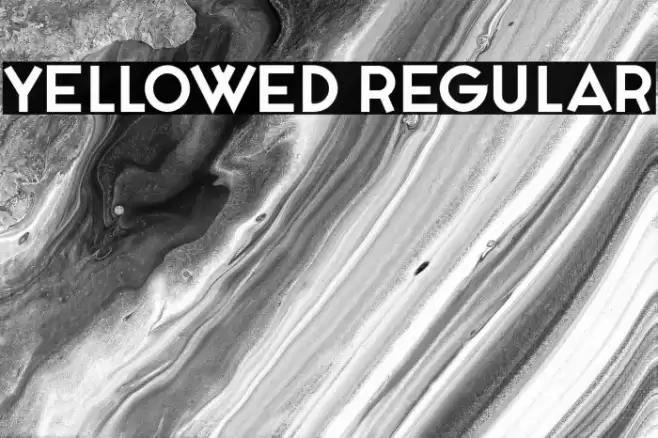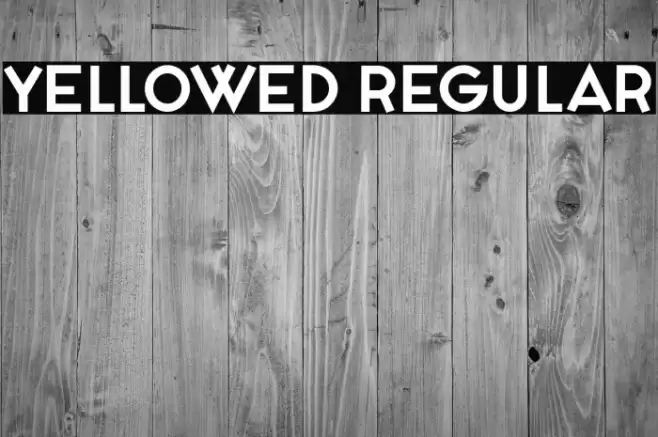
Yellowed Regular Font
Yellowed Regular Description
This font features a bold and geometric sans-serif style, characterized by clean lines and a modern aesthetic. The uppercase letters are uniform in height, with a slight angularity that adds a contemporary edge. The numerals are equally bold, ensuring legibility and consistency across different uses. Special characters maintain the same weight and style, providing a cohesive look. The overall design is minimalistic, making it suitable for a variety of applications where clarity and impact are desired.
A bold, geometric sans-serif font with a modern and minimalistic design from Uncategorized fonts.
- Proposed Projects: Ideal for branding, advertising, headlines, and digital media where a strong visual impact is needed.
- Use Case: Headlines, Logos, Branding